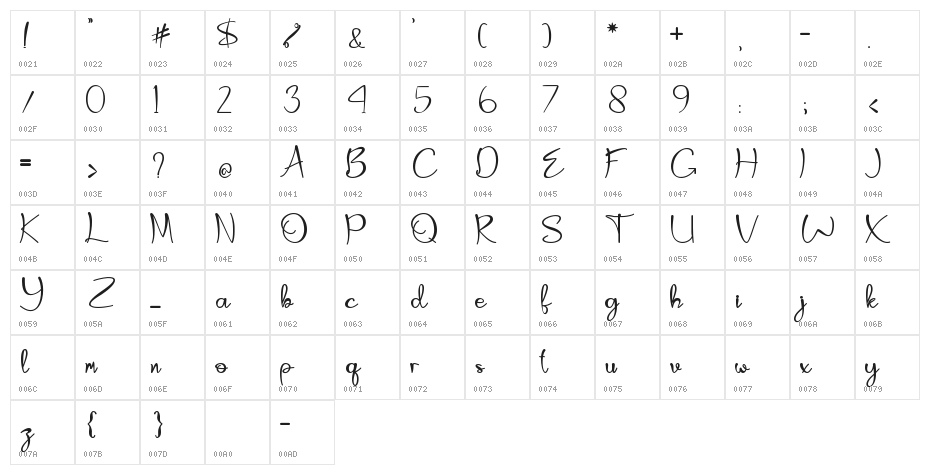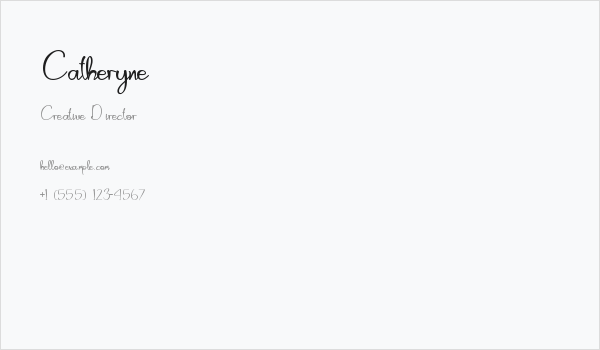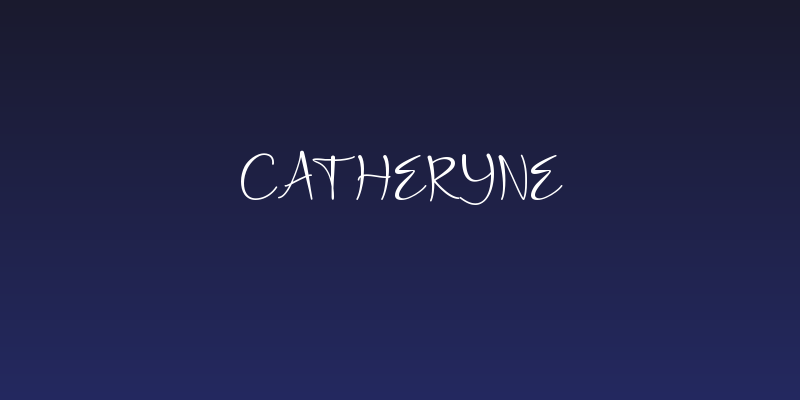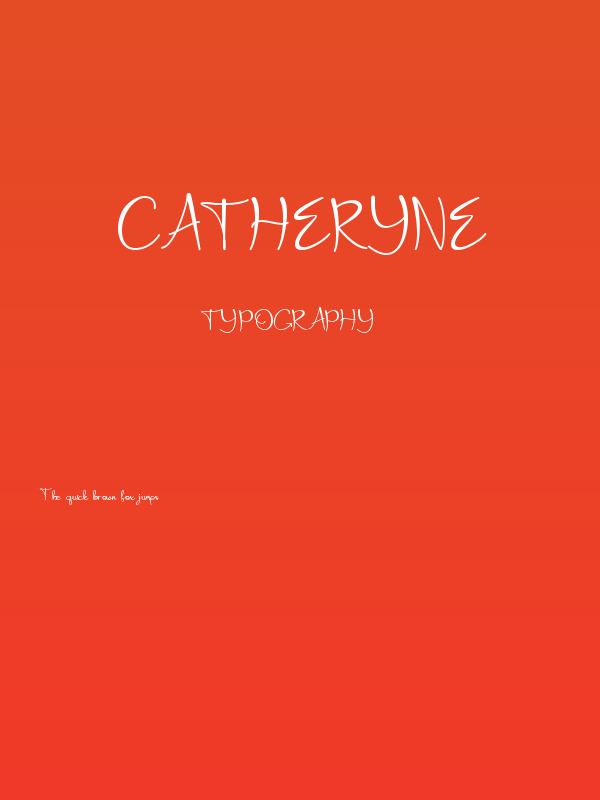
Catheryne Font
Catheryne Description
This font features a playful and whimsical script style with a handwritten appearance. The letters are characterized by smooth, flowing curves and a casual, informal look. The uppercase letters have a distinct flair with exaggerated loops and swirls, while the lowercase letters maintain a consistent, fluid motion. The numerals and special characters follow the same playful aesthetic, making the font suitable for creative and artistic projects. The overall design is dynamic and lively, perfect for capturing attention and conveying a sense of fun and creativity.
| Proposed Projects | Ideal for greeting cards, invitations, playful branding, and creative posters. |